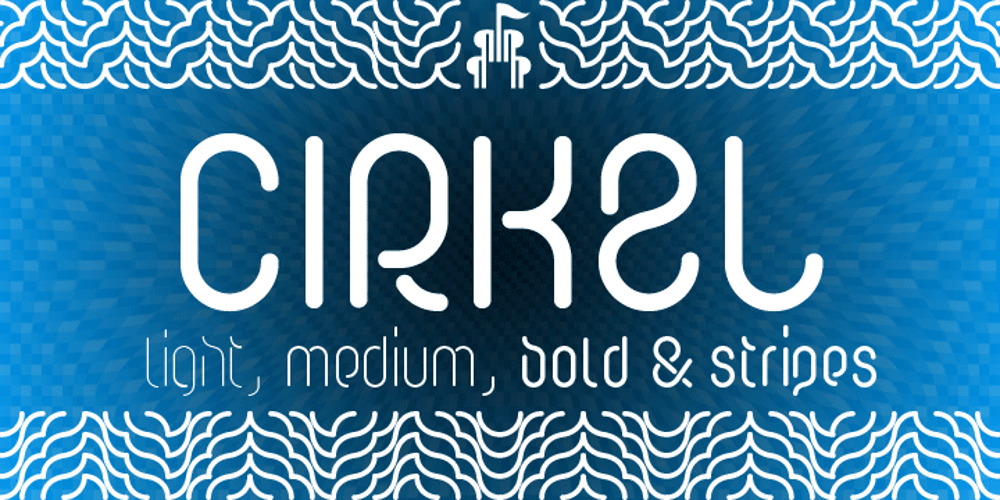
Cirkel Pro Font Family was designed by Jarbas Gomes and published by Forte Type. Cirkel Pro contains 6 styles and family package options. Cirkel is a contemporary font family based on circles. Its geometrical and unusual forms gives us a nice feel of modernity and humor. Created by Jarbas Gomes, Cirkel family is composed by 3 weights (Light, Medium & Bold) and its respective ornamented fonts made of patterns (Stripes Light, Stripes Medium & Stripes Bold). The fonts also have a great set of ligatures and swashes that can be accessed in softwares with support to OpenType features. Cirkel is indicated for hype designs, on titles and short texts.